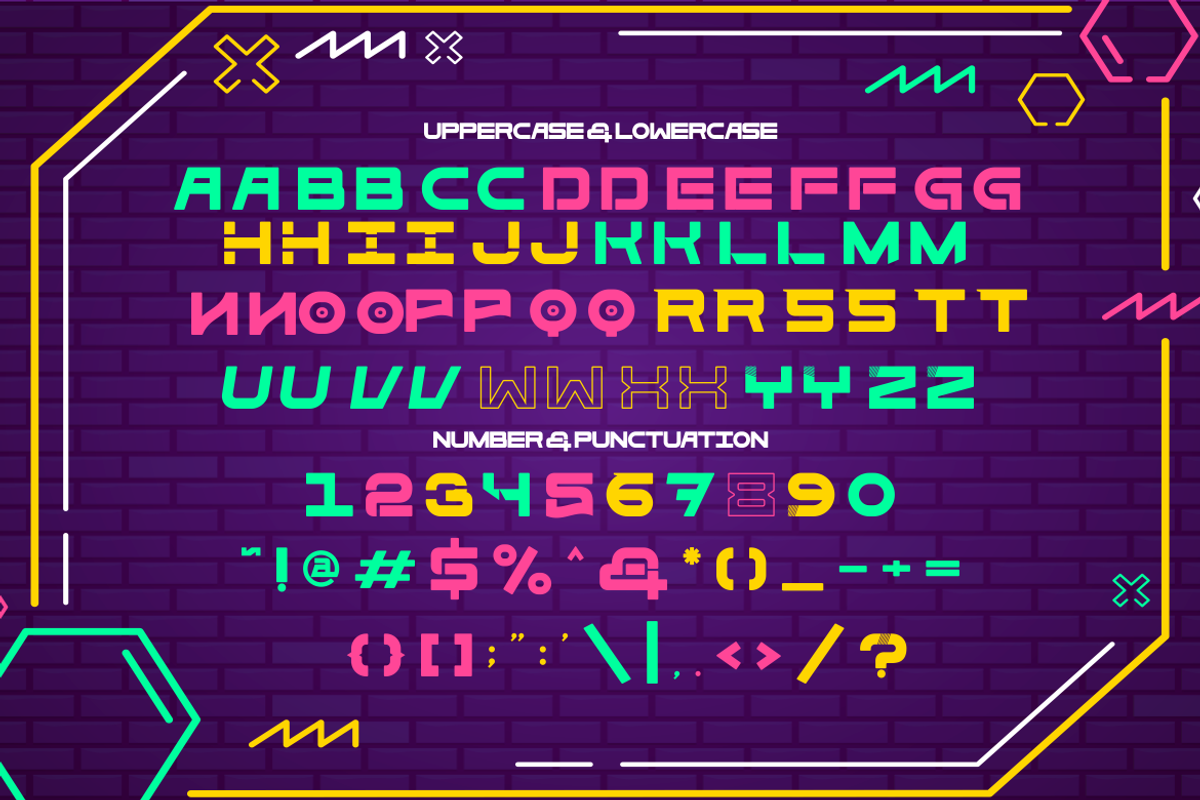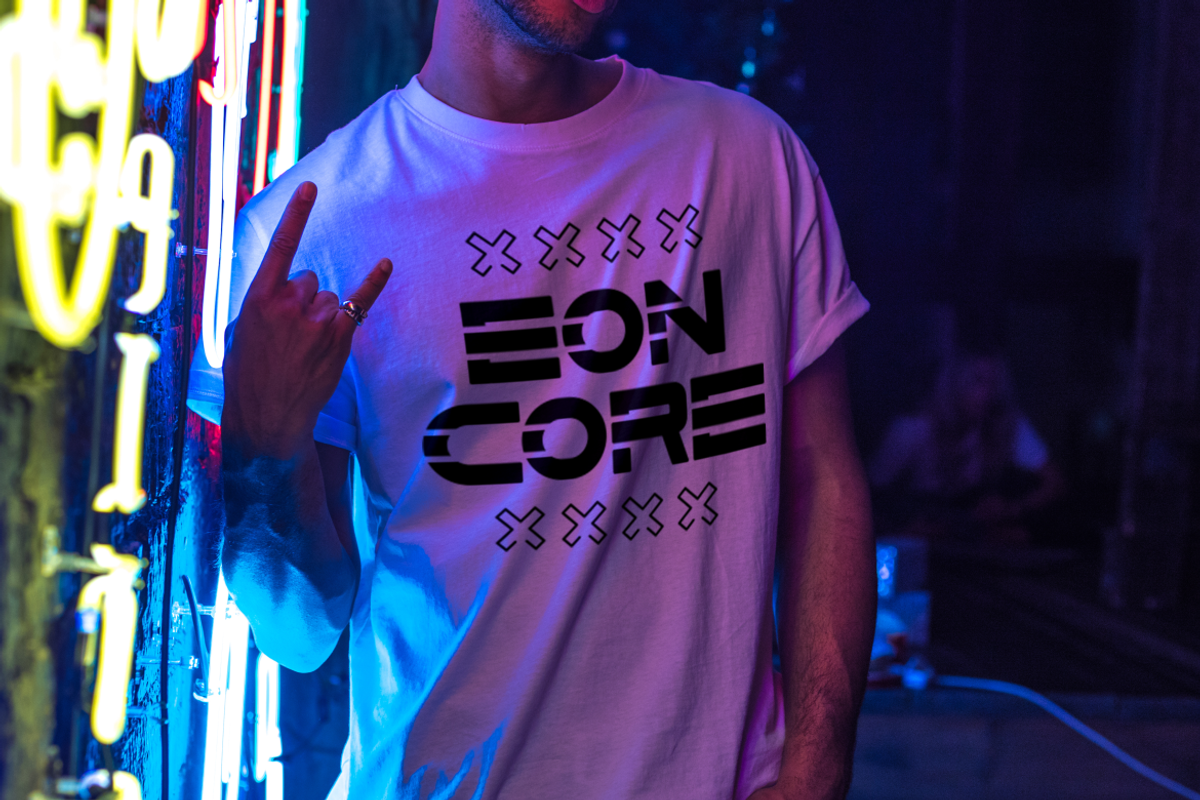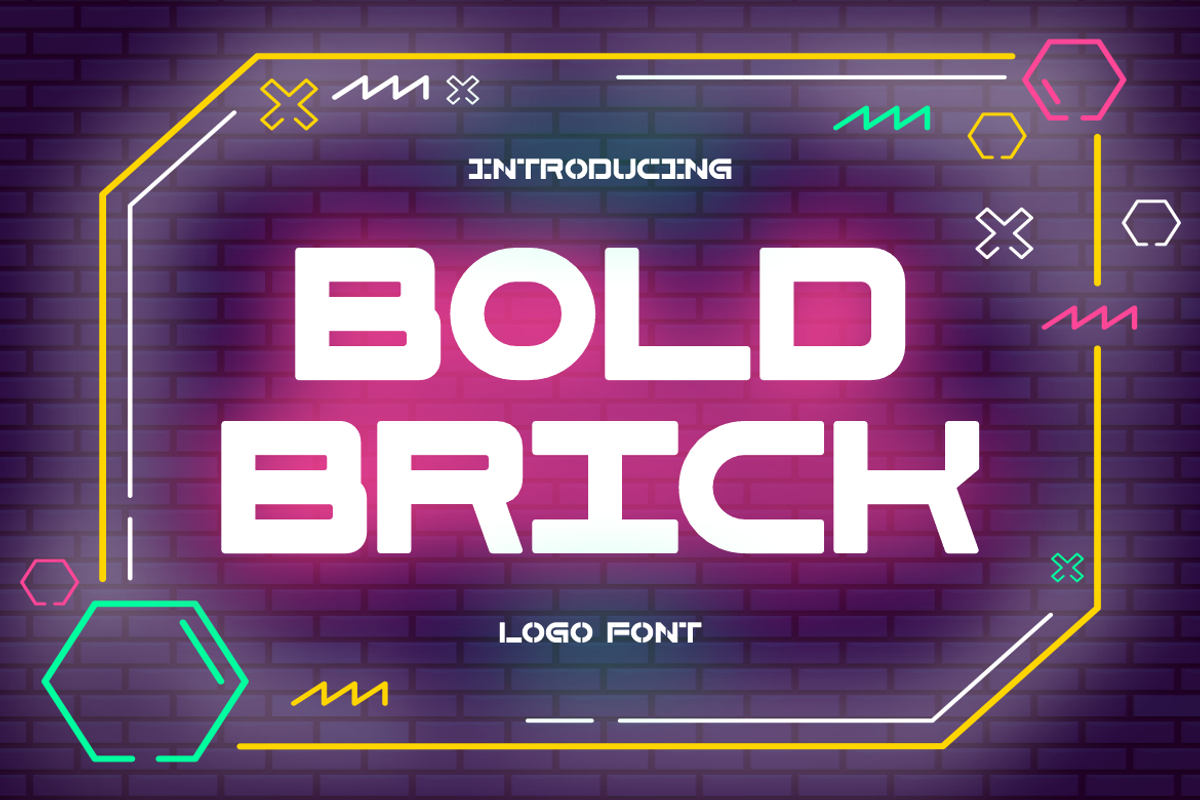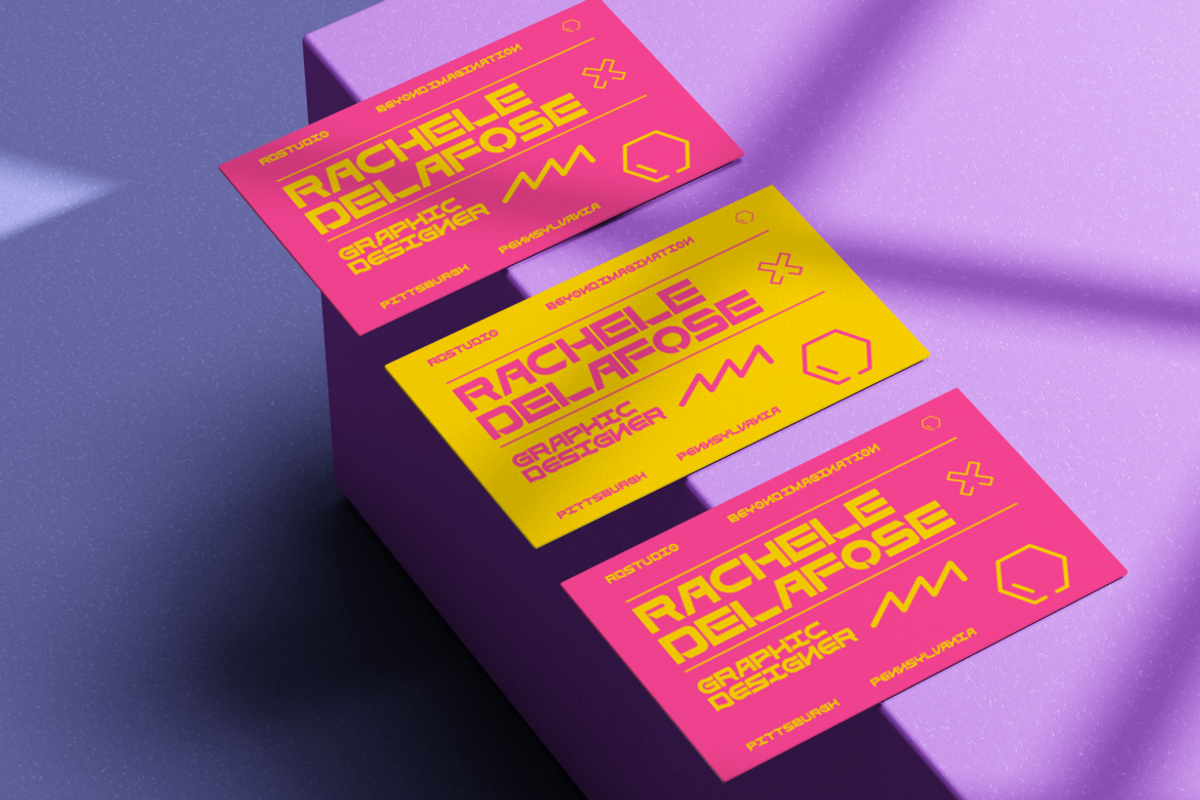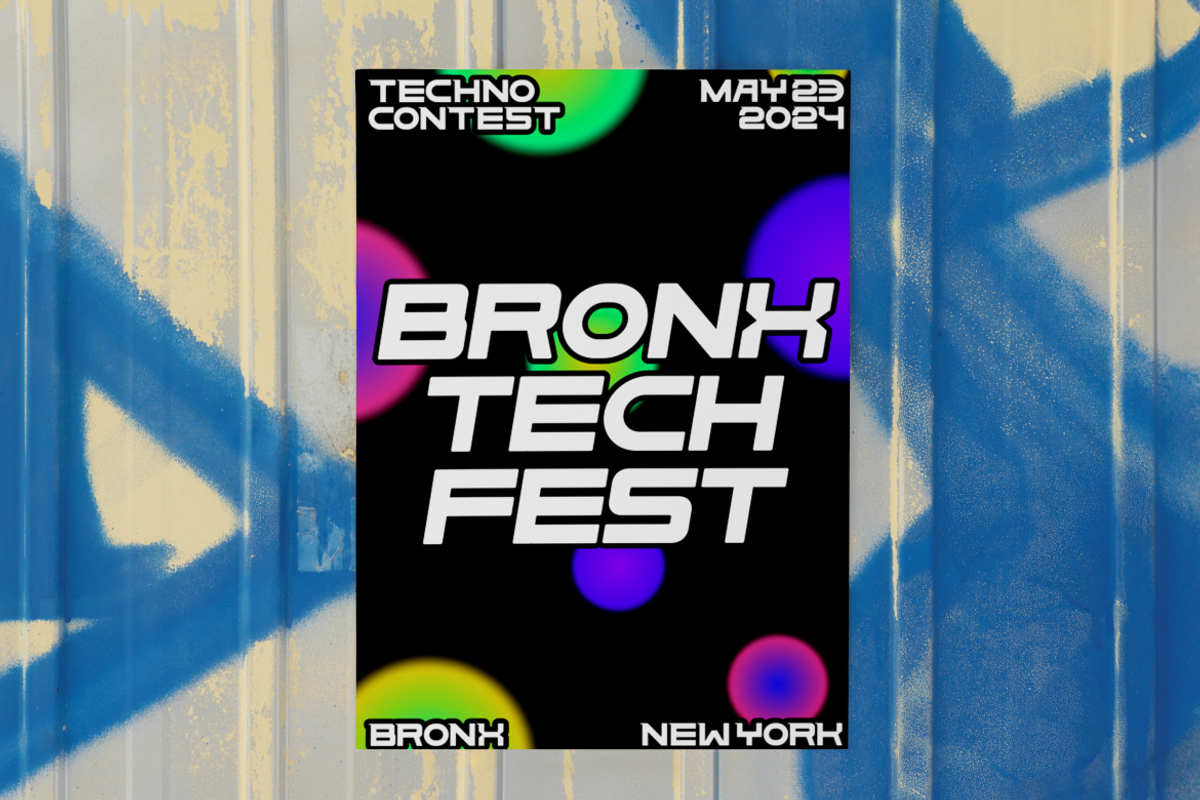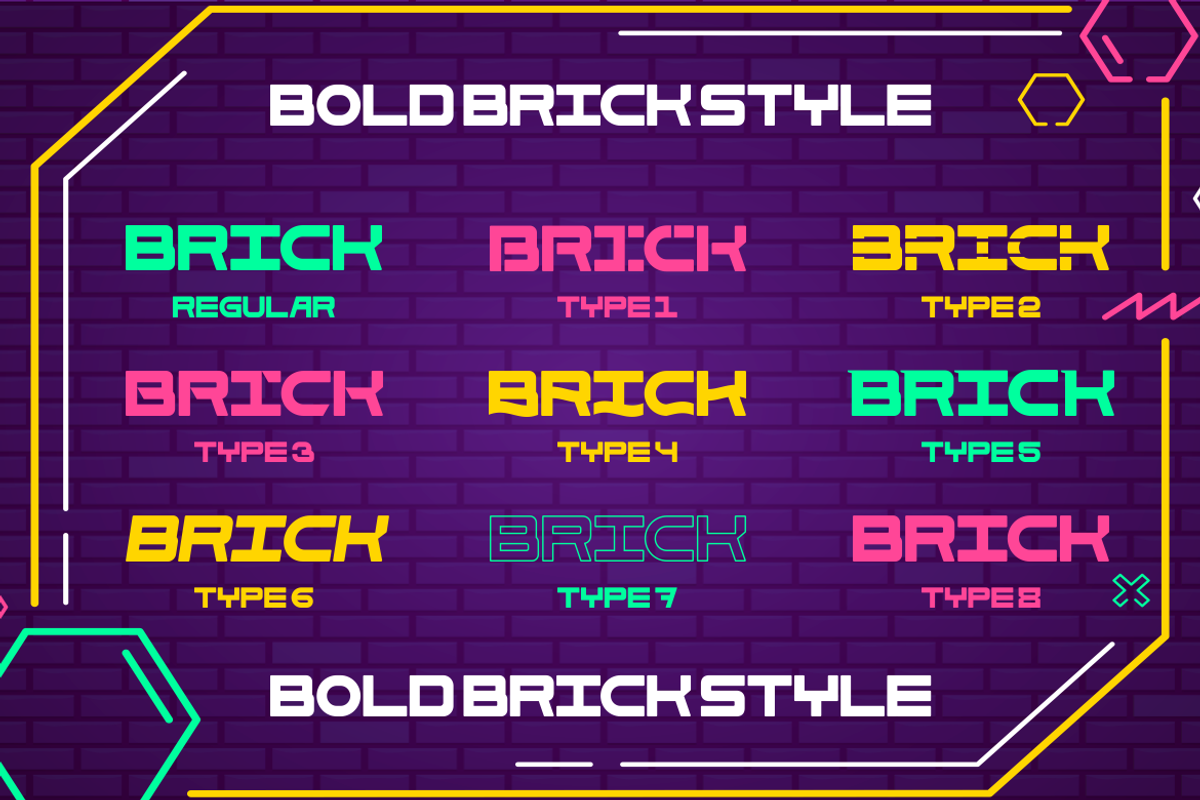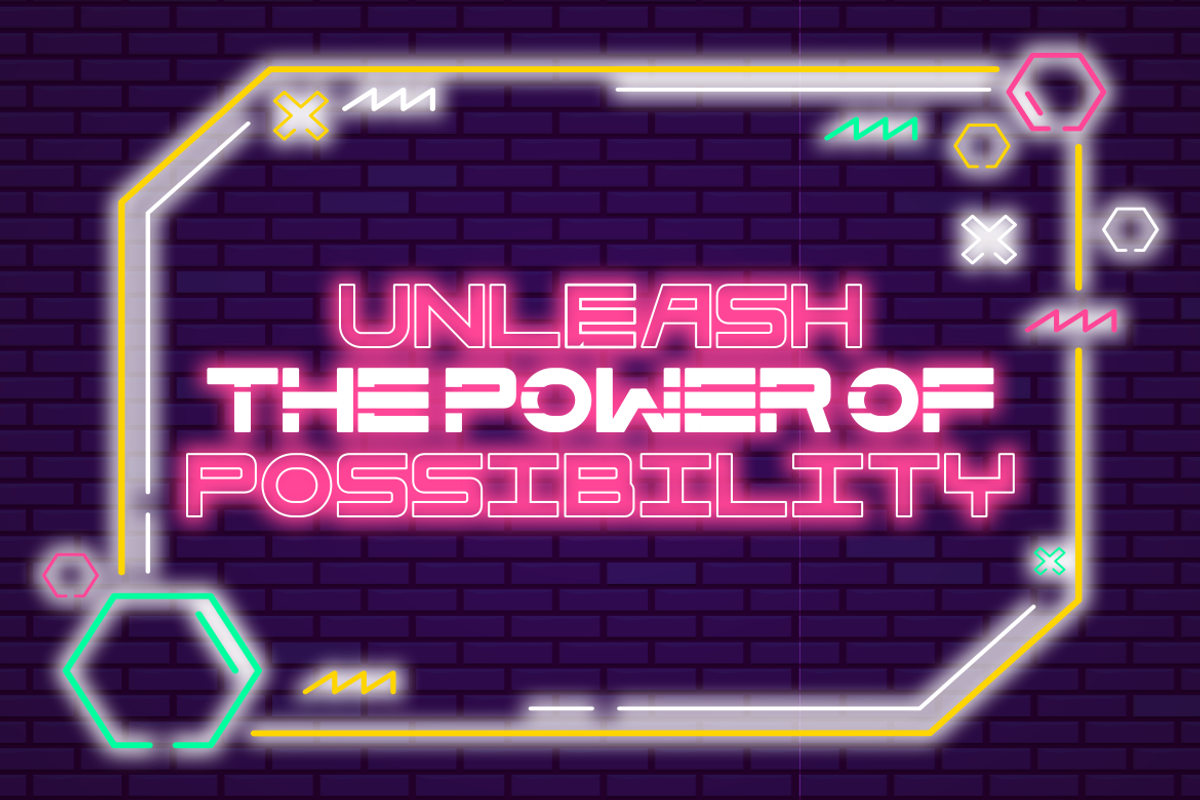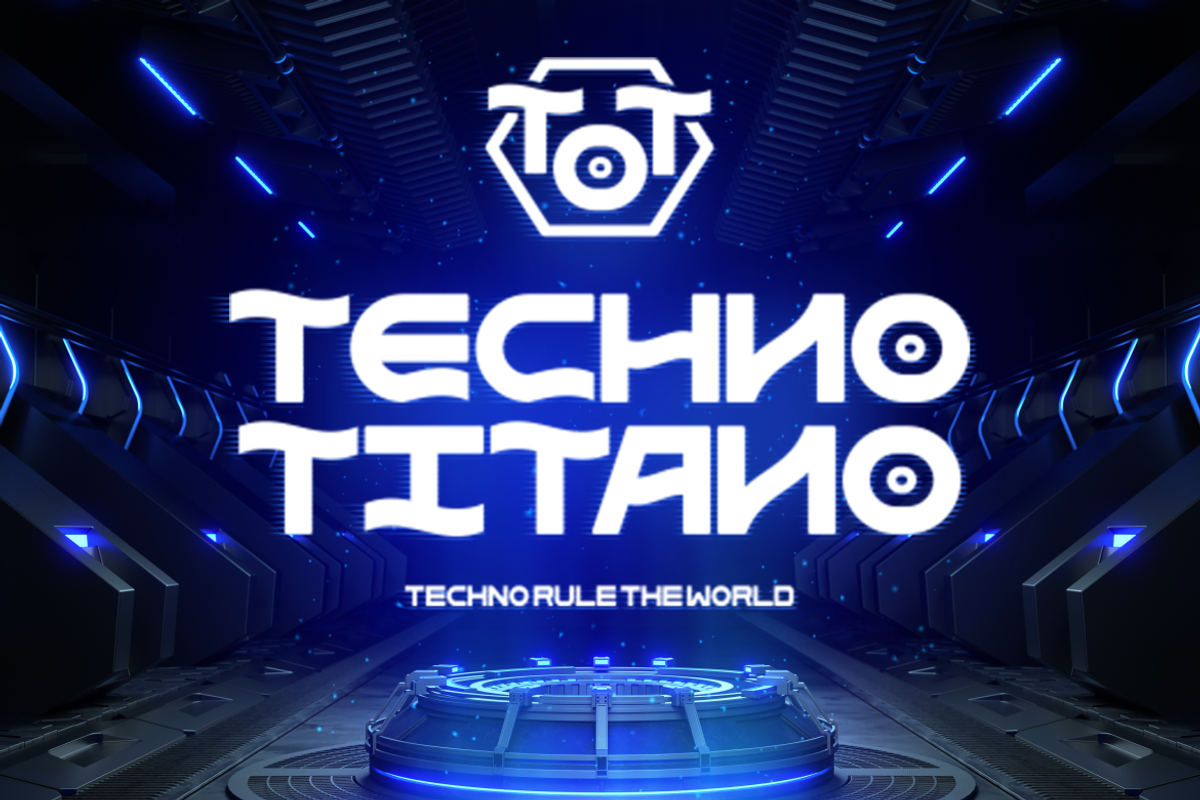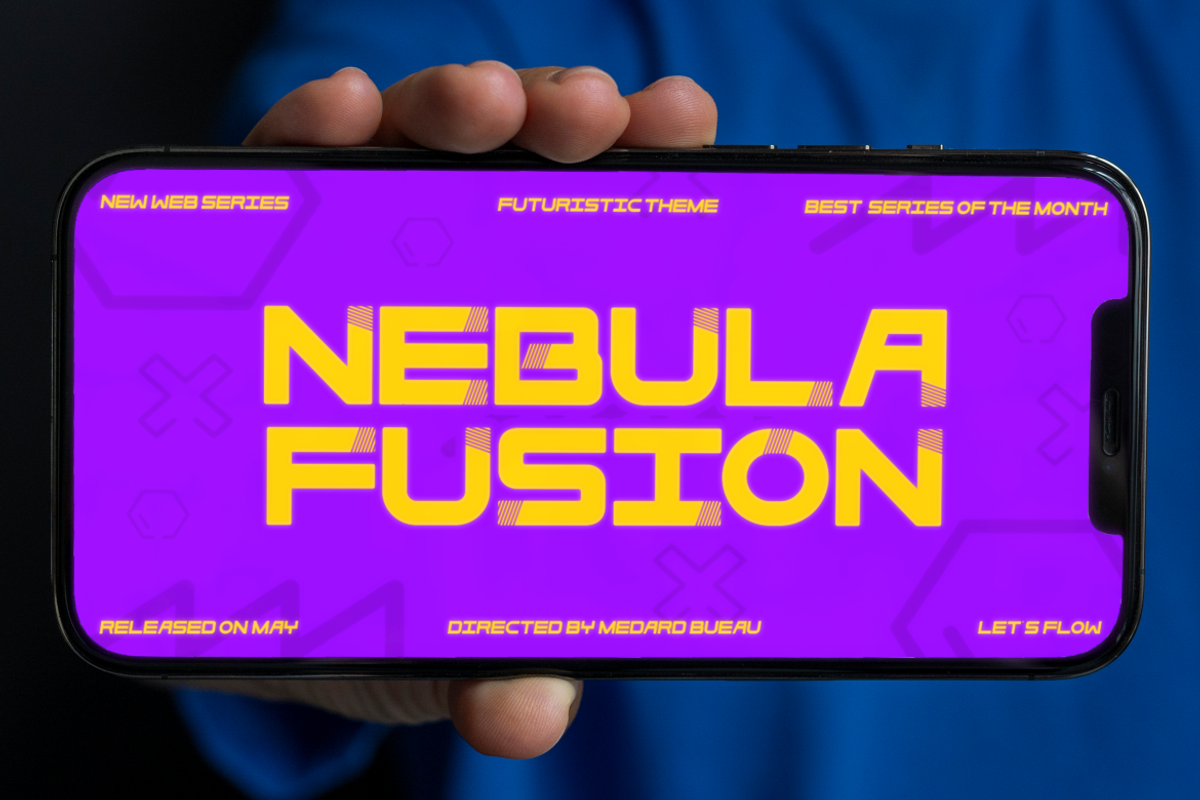
Bold Brick - Logo Font
Introducing Bold Brick - Logo Font: A cutting-edge display typeface designed for creators who want to make a statement. With its robust lines and impactful presence, Bold Brick embodies modernity while drawing inspiration from futuristic motifs and sci-fi aesthetics. This versatile font transcends traditional typography to deliver an innovative look perfect for sports branding, tech startups, or any project that demands attention.
Crafted to stand out in today’s visual landscape, Bold Brick offers unparalleled flexibility for diverse applications. Whether it’s logo creation, packaging design, or dynamic poster artistry, this typeface ensures your message is not just seen but felt. Its contemporary character makes it ideal for crafting invitations that leave an impression or adding an edge to children’s book titles and magazine layouts.